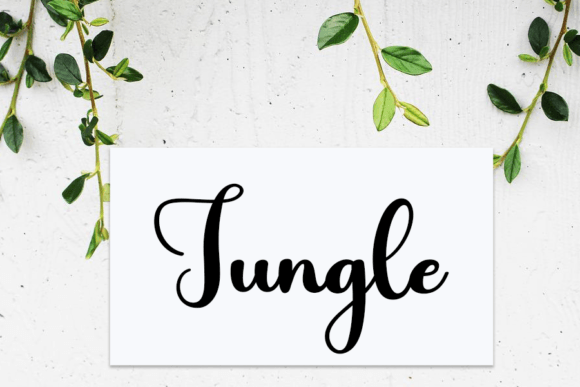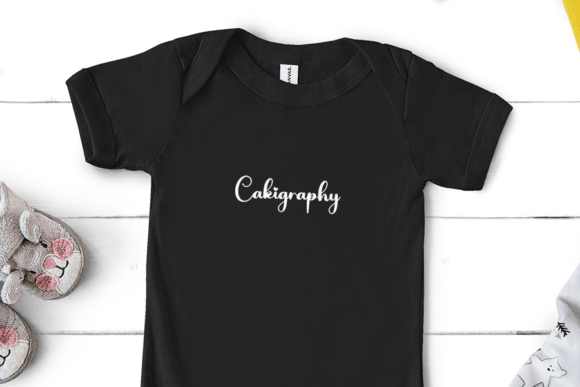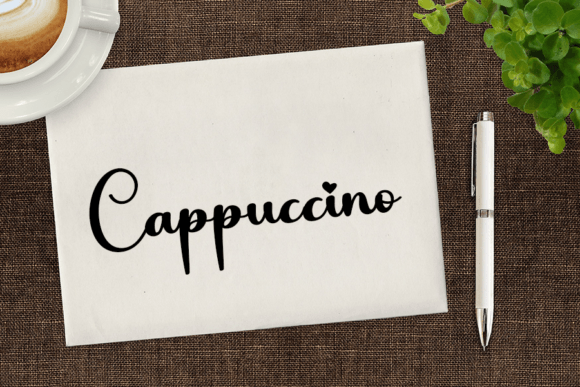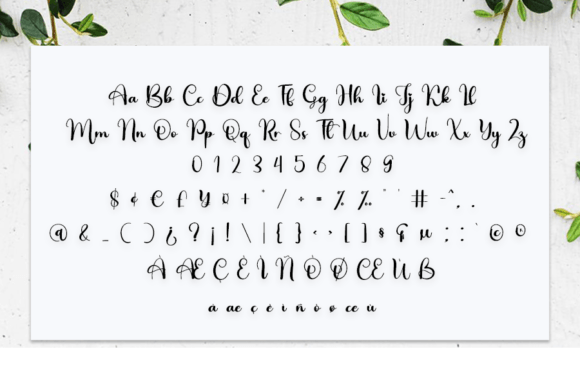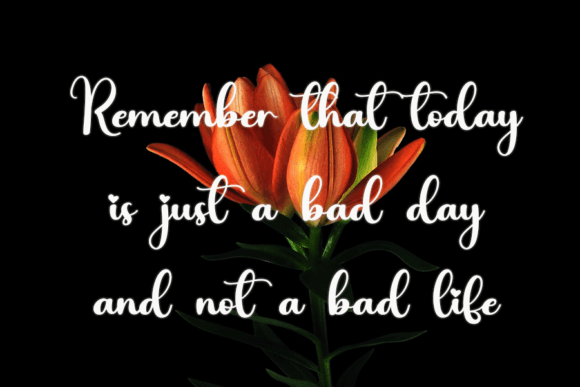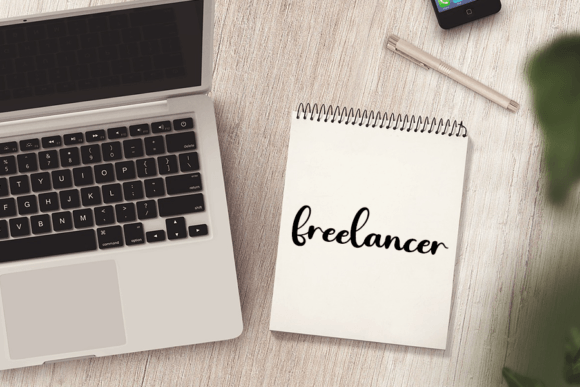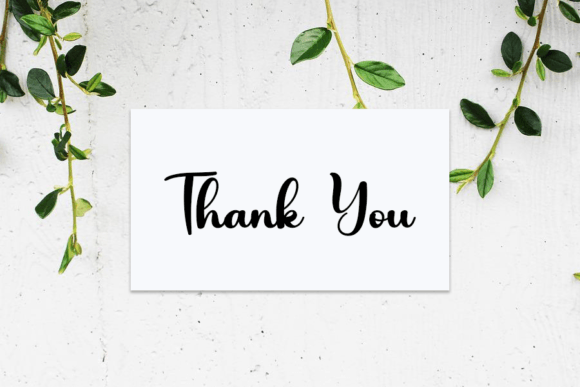
Caligraphy Font
About Caligraphy Font
**”Caligraphy”** is an elegant and feminine typeface that is well-suited for various headline and design applications. This versatile font choice can enhance the visual appeal of a wide range of projects, particularly those with a focus on elegance and femininity, such as wedding stationery, invitations, florists, packaging, and social media posts. Here are some key features and potential uses for the “Caligraphy” typeface:
1. **Elegant and Feminine:** “Caligraphy” exudes elegance and femininity, making it an ideal choice for projects that require a touch of sophistication and grace.
2. **Headlines and Titles:** This typeface is particularly well-suited for creating eye-catching headlines and titles that command attention and convey a sense of elegance.
3. **Wedding Stationery:** “Caligraphy” can be used to design wedding invitations, save-the-date cards, and other stationery, adding a romantic and elegant touch to these special occasions.
4. **Florists and Packaging:** It’s a fitting choice for businesses in the floral industry, as well as for packaging design that requires a delicate and refined style.
5. **Social Media Posts:** Use “Caligraphy” to create social media graphics, posts, and captions that resonate with a feminine and elegant aesthetic.
6. **Versatile Application:** The typeface’s versatility allows it to adapt to various design contexts, ensuring it can complement different creative projects.
In summary, **”Caligraphy”** is a font that brings elegance and femininity to your projects. Its graceful and refined qualities make it a valuable asset for designers and individuals looking to enhance the visual appeal and sophistication of their creative endeavors, particularly in the context of wedding stationery, floral design, and elegant branding.